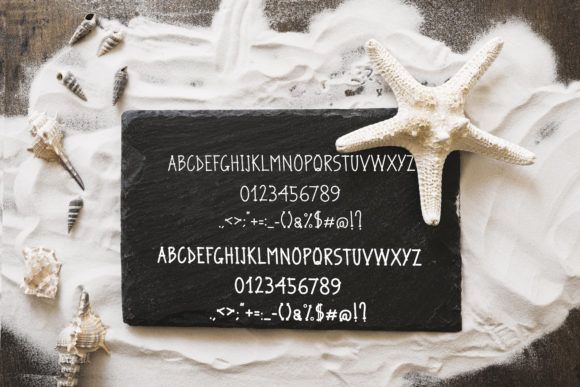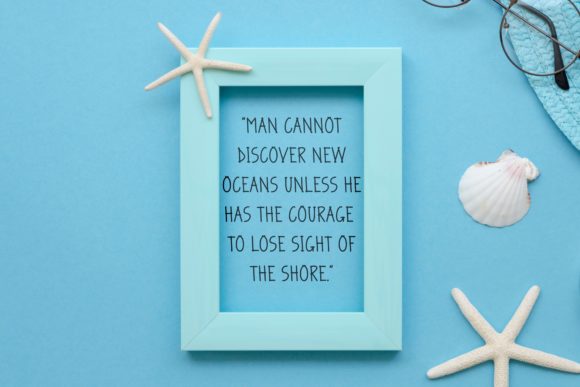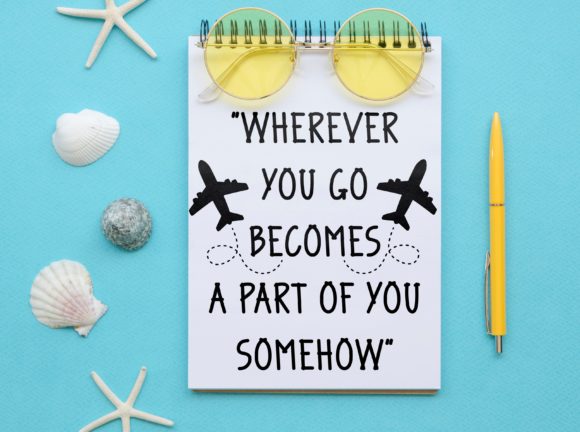
The Perfect Font to Give Your Creations a Touch of Elegance
Have you ever found yourself staring at a blank page, struggling to find the perfect words to bring your vision to life? We’ve all been there. But what if the right words came with the perfect font? Introducing the Aphitos Bundle Font, a stunning Greek-inspired handwritten font that will elevate any creation and leave a lasting impression.
This beautiful font is more than just a design element – it’s a key to unlocking the full potential of your creative projects. With its unique blend of style and sophistication, the Aphitos Bundle Font is the perfect addition to any designer’s library. Whether you’re working on a branding project, a marketing campaign, or a personal art piece, this font is sure to make a statement and leave a lasting impact.
Aphitos Bundle Font Key Features
- Font Family: Aphitos Bundle Font is a multi-font family consisting of 8 different fonts, including sans-serif, serif, script, and display fonts.
- Unique Characteristics: Aphitos Bundle Font features unique and modern designs, including hand-drawn elements, geometric shapes, and abstract patterns, making it perfect for creative projects.
Aphitos Bundle Font Review
I recently had the chance to work with the Aphitos Bundle Font, and I must say it’s a mixed bag. Here’s my honest take on it.
- The Aphitos Bundle Font offers a wide range of styles, from sans-serif to serif, and even some script fonts. This makes it a great option for designers who need to create diverse content.
- The font is highly customizable, with plenty of options for adjusting font sizes, line heights, and letter spacing. This makes it easy to fine-tune the look and feel of your designs.
- The font is also highly legible, making it perfect for body text and other content where readability is key.
- The font is not suitable for high-end or luxury branding, as it may not convey the level of sophistication and elegance that these brands require.
- The font is also not ideal for use in extremely small sizes, as it may become difficult to read.
Overall, the Aphitos Bundle Font is a solid option for designers who need a versatile and customizable font for their projects. While it may not be perfect for every situation, it’s definitely worth considering for its wide range of styles and high legibility.
The Aphitos Bundle Font is ideal for:
- Editorials and publications
For the most out of the font, use it in combination with high-contrast backgrounds and bold, clean typography.